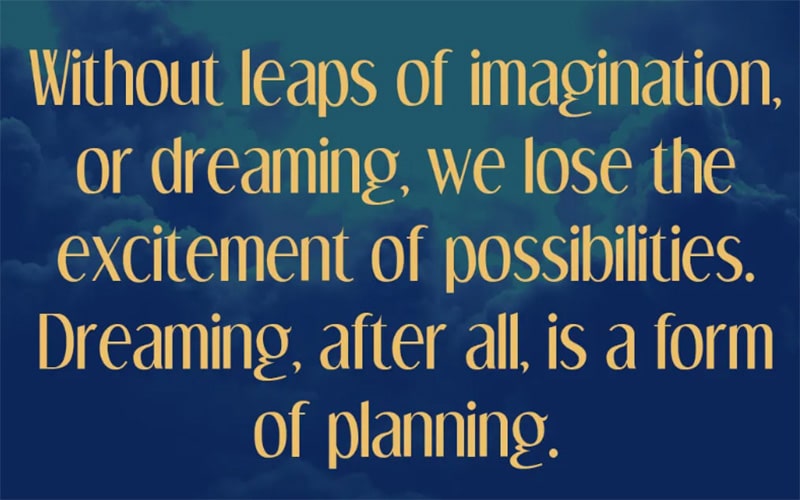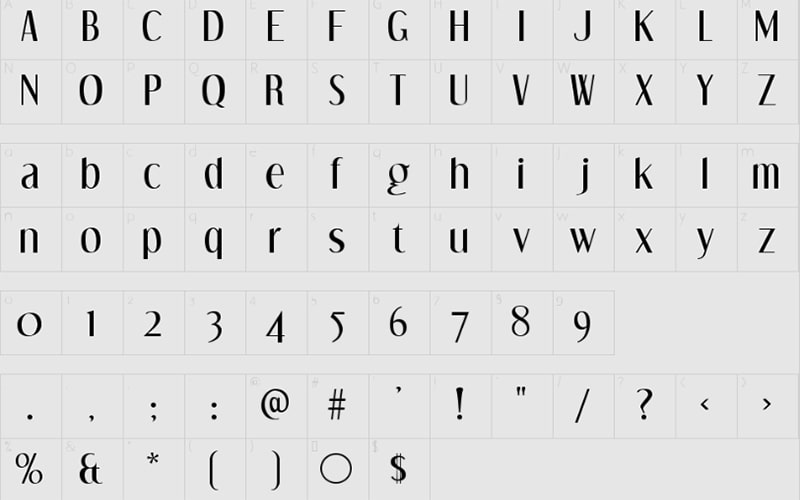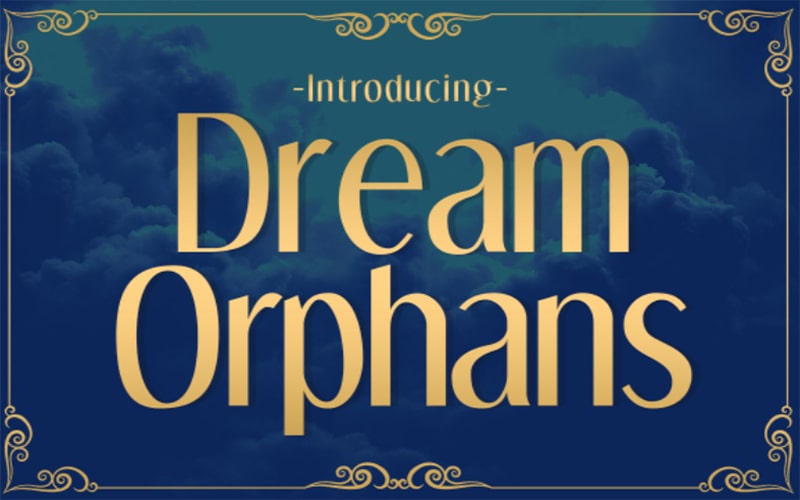
Dream Orphans font is a Basic, Sans serif typeface. Ray Larabie is known as the primary designer who took the authority to release this typeface for giving an outstanding look.
For the very first time, Dream Orphans font was published by Typodermic Fonts on Sep 10, 2010. After a few modifications, it was updated on June 23, 2021.
This typeface has come with Basic Latin Unicode blocks. It is available in 201 defined characters. The font subfamily of this typeface is regular.
A sans serif typeface has represented 4 unique styles. That includes DreamOrphans Regular, DreamOrphans Italic, DreamOrphans Bold, and DreamOrphans BoldItalic.
Dream Orphans Font
It supports Afrikaans, Albanian, Catalan, Danish, Dutch, English, Estonian, Finnish, French, German, Icelandic, Italian, Norwegian, Portuguese, Spanish, Swedish, and Zulu.
This basic bold font style contains a strong character set including numbers, punctuations, uppercase, and lowercase letters. Let’s take a look at its beautiful texture.